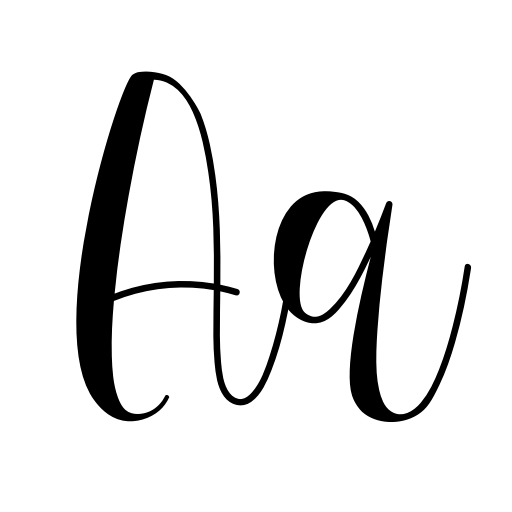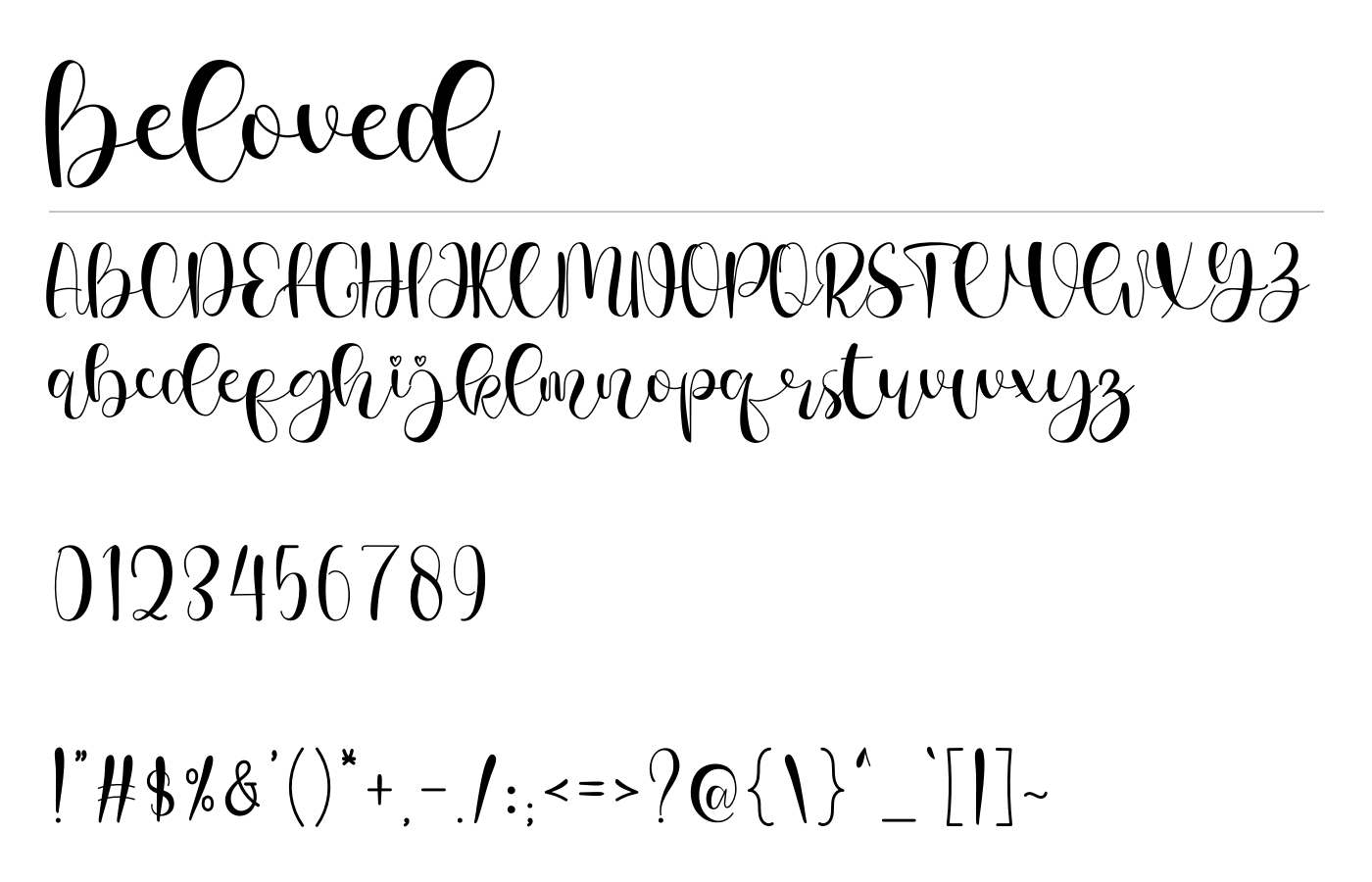
Beloved Font is a whimsical and elegant script typeface with a flowing, hand-lettered style that features smooth curves and playful heart-shaped dots. Its tall, narrow letterforms and fine, varied strokes give it a light, airy feel perfect for romantic and creative designs. This font is ideal for invitations, branding, and feminine projects that seek a charming and personal touch.
Beloved Font